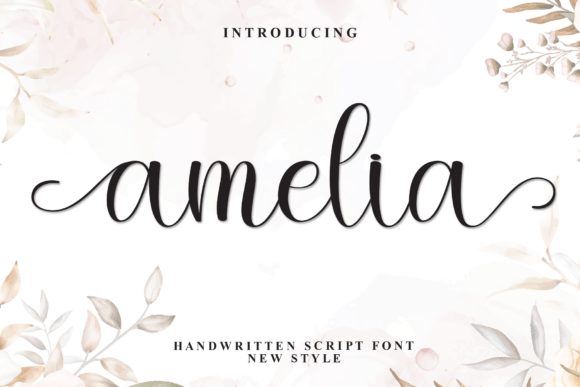
Unleashing the Elegance of Amelia Font
Have you ever been stuck on a design project, searching for the perfect font to elevate your creation? That moment of inspiration is what drove many designers to discover Amelia Font – a stylish script font that exudes contemporary charm. With its fluid curves and carefully crafted letterforms, it’s no wonder this font has become a favorite among creatives.
Whether you’re designing a logo, invitation, or social media graphic, Amelia Font adds a refined and sophisticated touch to any project. Its natural flow and polished details make it a versatile choice for designers who want to deliver both style and substance. With Amelia Font, you can create stunning designs that leave a lasting impression on your audience.
Amelia Font Key Features
- Unique Characteristics: A modern, elegant script font with flowing connections and subtle flair, suitable for creative and professional applications
- Font Style: Script, Casual, Elegant
Amelia Font Review
Overall, I’m impressed with the Amelia Font, but like any design element, it’s not without its quirks. ✨ One thing that works well is its versatility. It comes in a range of weights and styles, making it suitable for a variety of design projects.
- ✨ The font’s bold and italic variations are particularly well-suited for headings and titles.
- ✨ The font’s clean lines and modern aesthetic make it a great choice for digital design projects.
However, I do have a few concerns. ⚠️ One limitation is the font’s limited language support. If you’re working on a project that requires a lot of text in non-Latin scripts, you may need to look elsewhere.
Overall, I think the Amelia Font is a solid choice for designers who need a modern, versatile font for their projects. With its clean lines and range of weights, it’s a great option for everything from digital design to print projects.
Tips for Getting the Most Out of Amelia Font
To get the most out of Amelia Font, use it for:
- Headings and titles for a touch of elegance and sophistication.
- Body text for a clean and modern look.
- Combine with other fonts for a unique and creative look.
Amelia Font is perfect for:
- Designing a website or blog.
Alternatives to Amelia Font for Designers
Unlocking the Elegance of Amelia Font
Project 1: Elegant Travel Journal
Transform your travel journal into a stylish keepsake with Amelia Font.